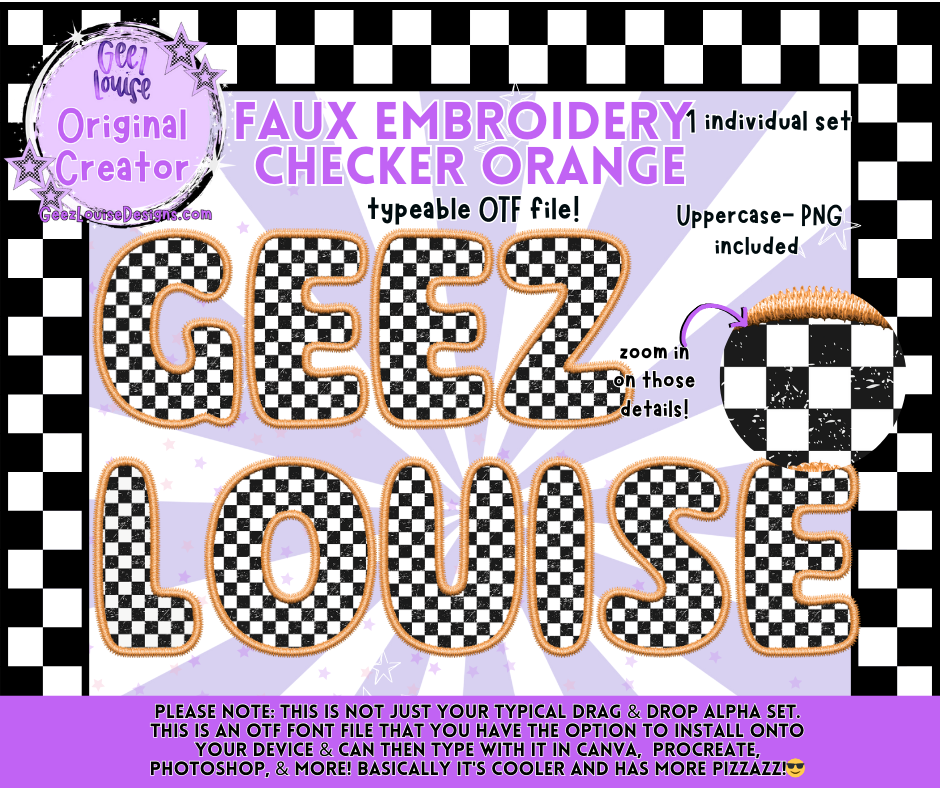
Faux Embroidery Checker Orange OTF Alpha | Typeable Font + PNG
Add bold, playful vibes to your designs with the Faux Embroidery Checker Orange OTF Alpha! 🧡🖤 This typeable OTF font is designed to bring that stitched, checkerboard look without the hassle of drag-and-drop. Perfect for digital designers, crafters, and small business owners, this set makes personalization fun and easy.
• Faux embroidery + checker texture with orange outline